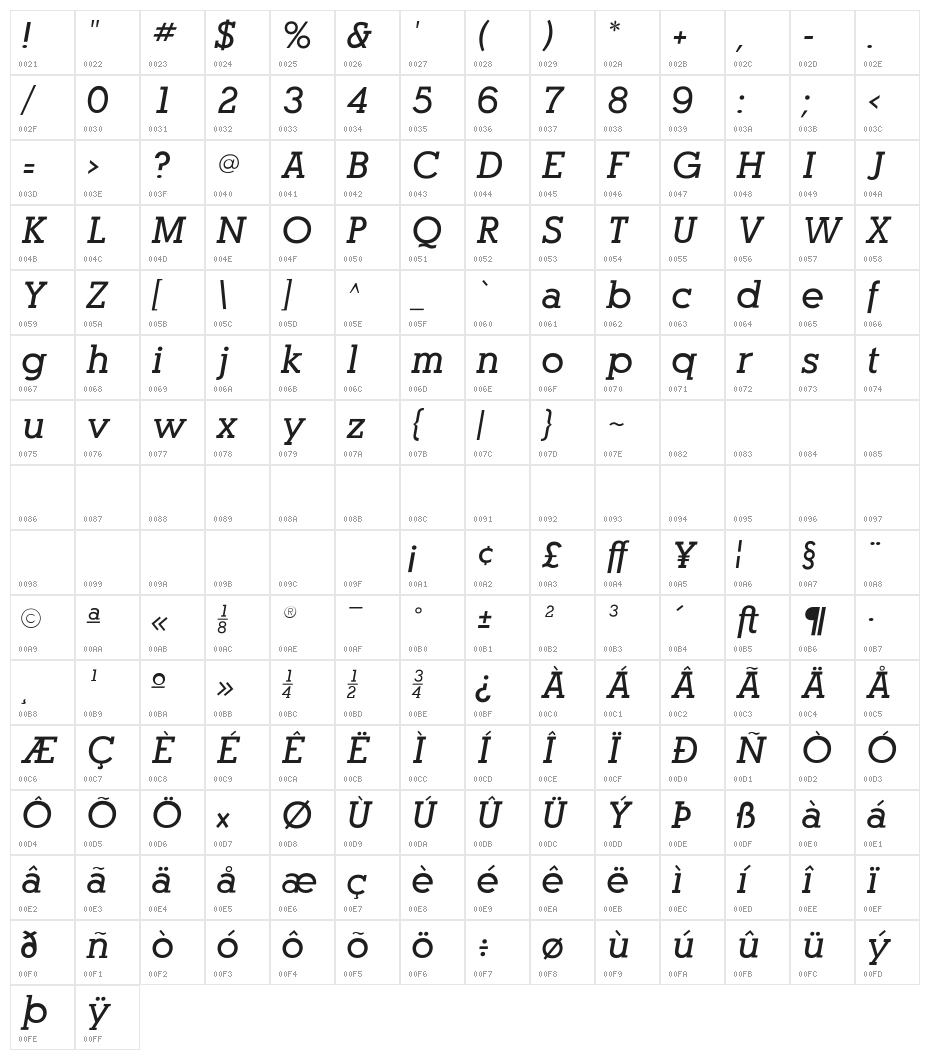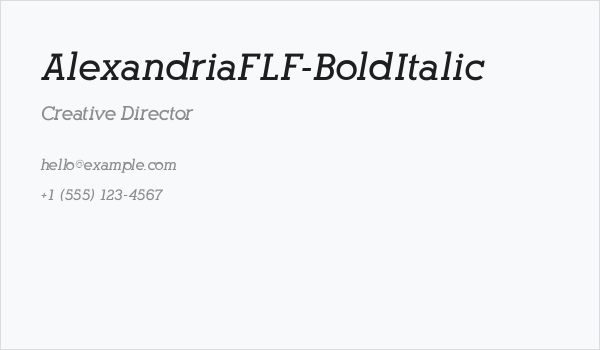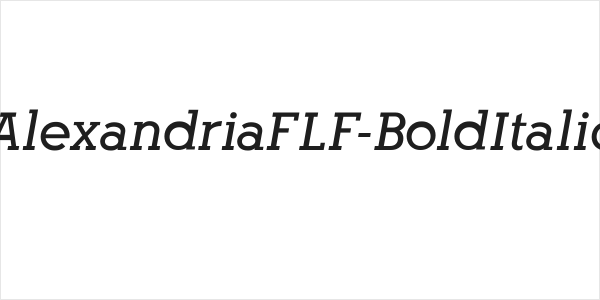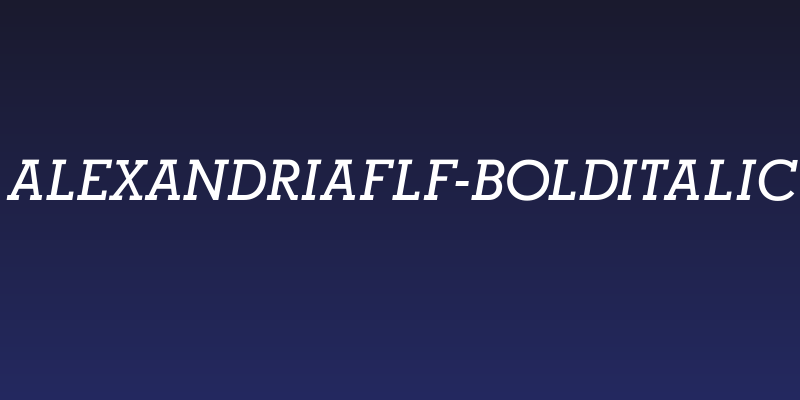
AlexandriaFLF-BoldItalic Font
AlexandriaFLF-BoldItalic Description
This font exhibits a bold and italicized style, characterized by its strong and dynamic presence. The uppercase letters are well-defined with a slight slant, adding a sense of movement and elegance. The lowercase letters maintain a consistent flow, enhancing readability while retaining a stylish flair. Numbers are bold and clear, ensuring they stand out in any context. Special characters are crafted with precision, complementing the overall aesthetic. The font's design balances modernity with a classic touch, making it versatile for various applications.